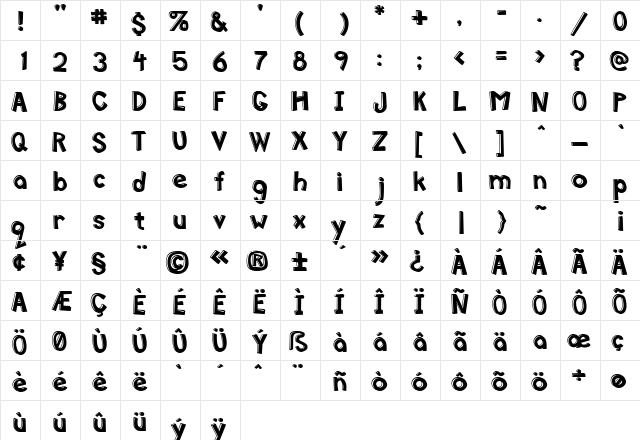
MittenRight Right
MittenRight Right Font Details
StyleRight
Design Context for MittenRight Typeface
MittenRight is a composed and adaptable typeface that performs quietly and consistently across a wide range of design contexts.
Pro Tip: Use MittenRight in both headline and body roles to test its range before committing to a single application.